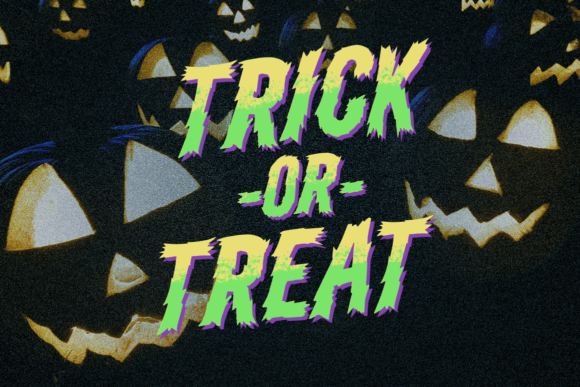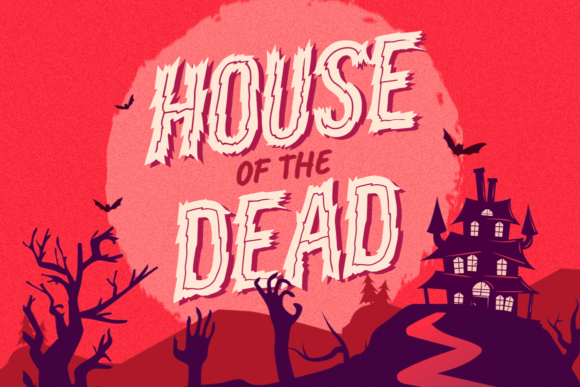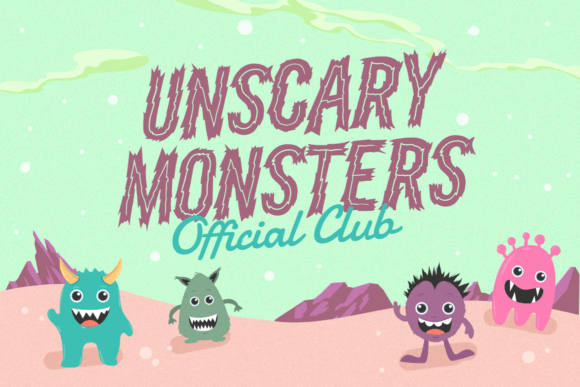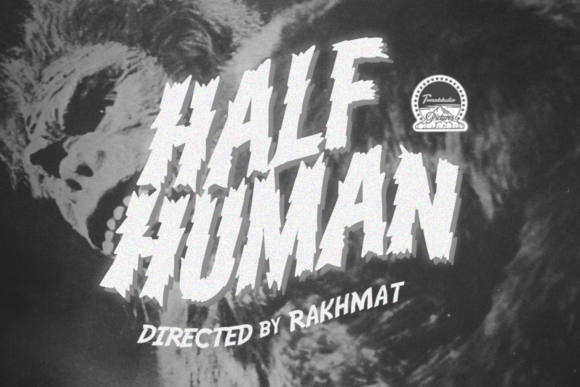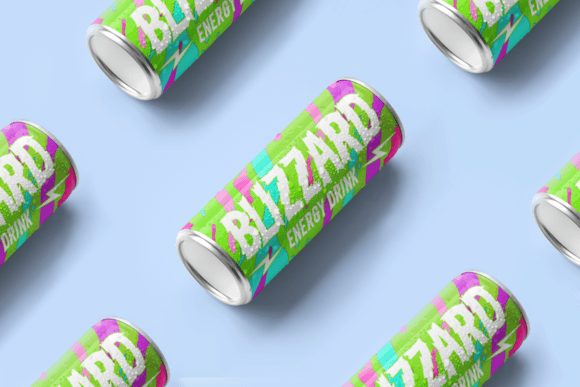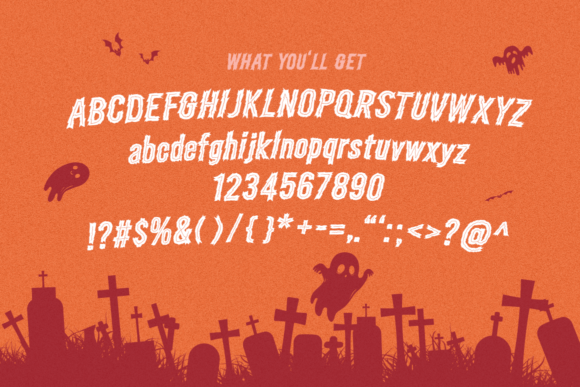
Introduction to Crazy Monsters Font
Designed for horror vintage design, but it also flexible to any modern design needs.
Carefully crafted and detail with handmade Wacom and converting it to vector I hope this fonts will make your design stand out, Cheers.